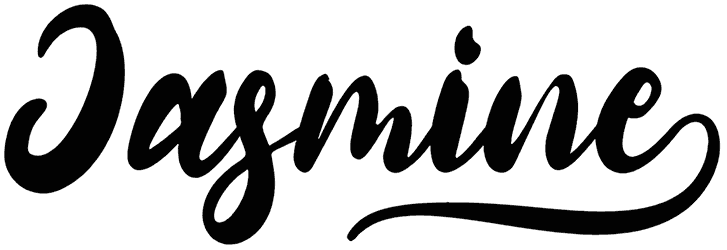
Jasmine Font
Jasmine is a fantastic script font that catches your eye at first sight. This well-designed font has a playful form and sends a friendly vibe to the viewers. Its letters are bold and have a semi-curvy shape with no edges…
Jasmine is a fantastic script font that catches your eye at first sight. This well-designed font has a playful form and sends a friendly vibe to the viewers. Its letters are bold and have a semi-curvy shape with no edges, which makes you stare.
You can use this handwritten font in different situations, such as in magazines, commercial packaging, and logos. The Jasmine font’s letters have a stunning style and seem written fast, which entertains your audience.